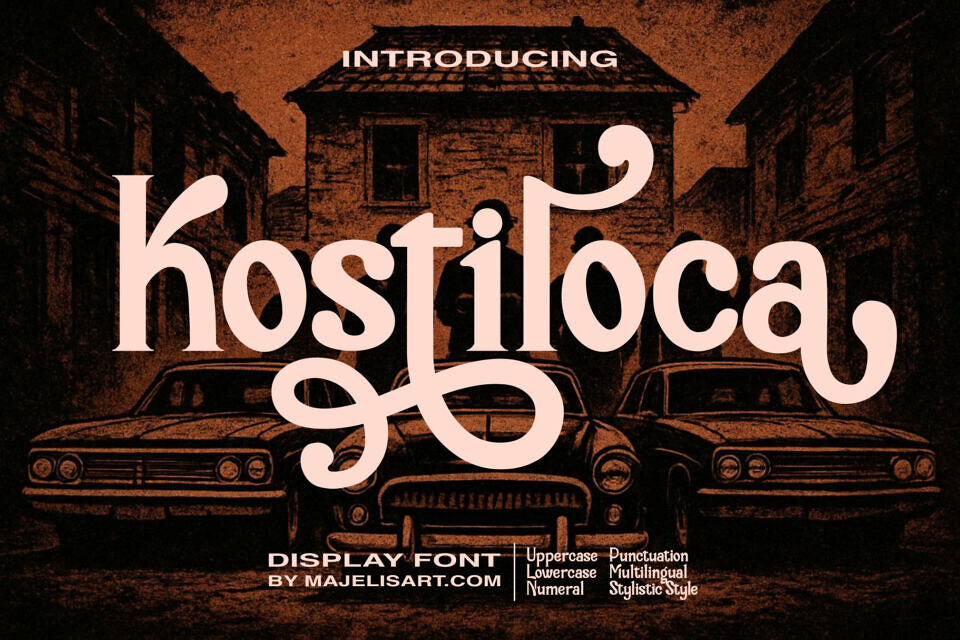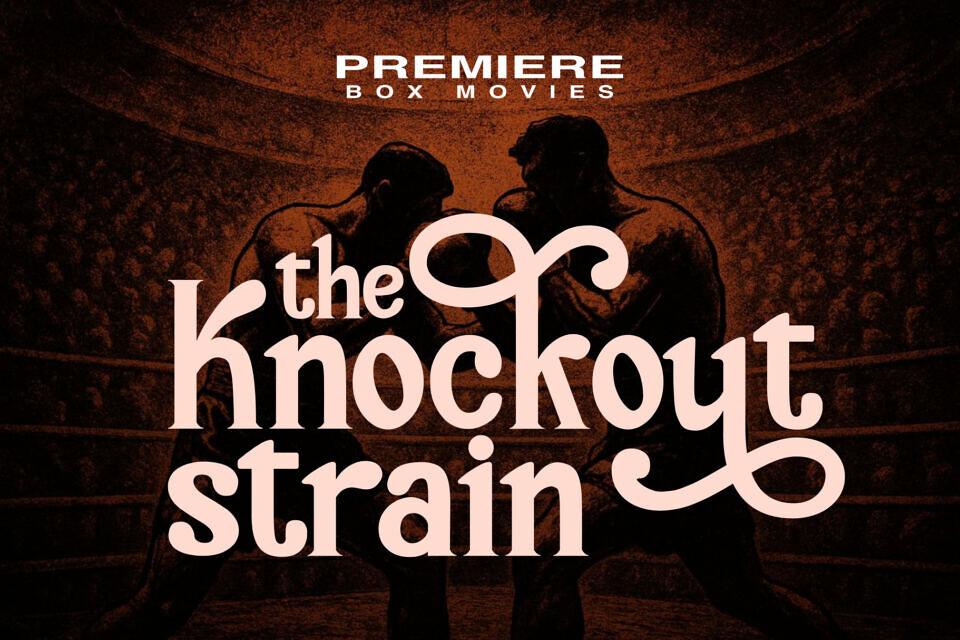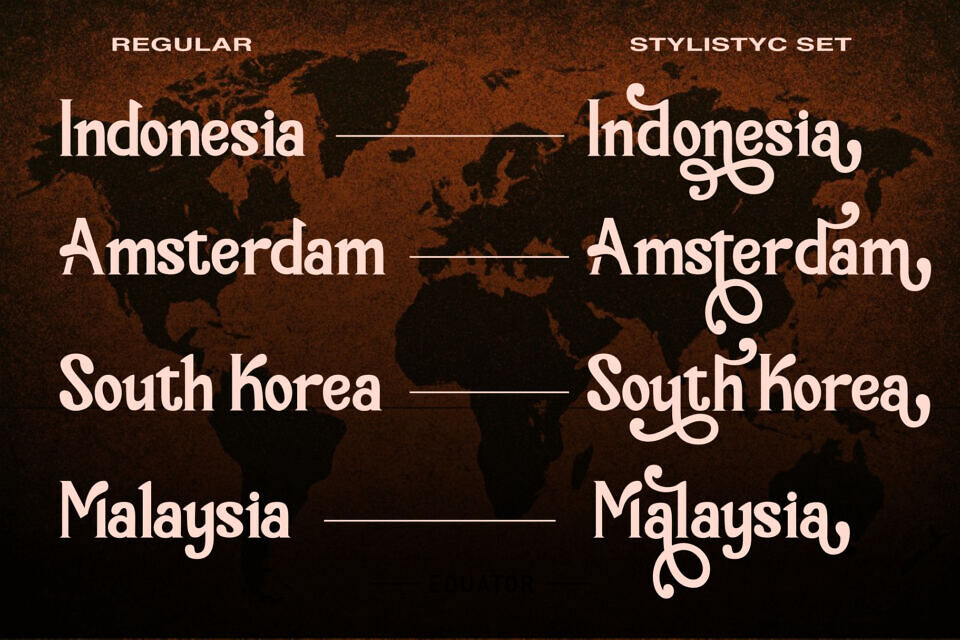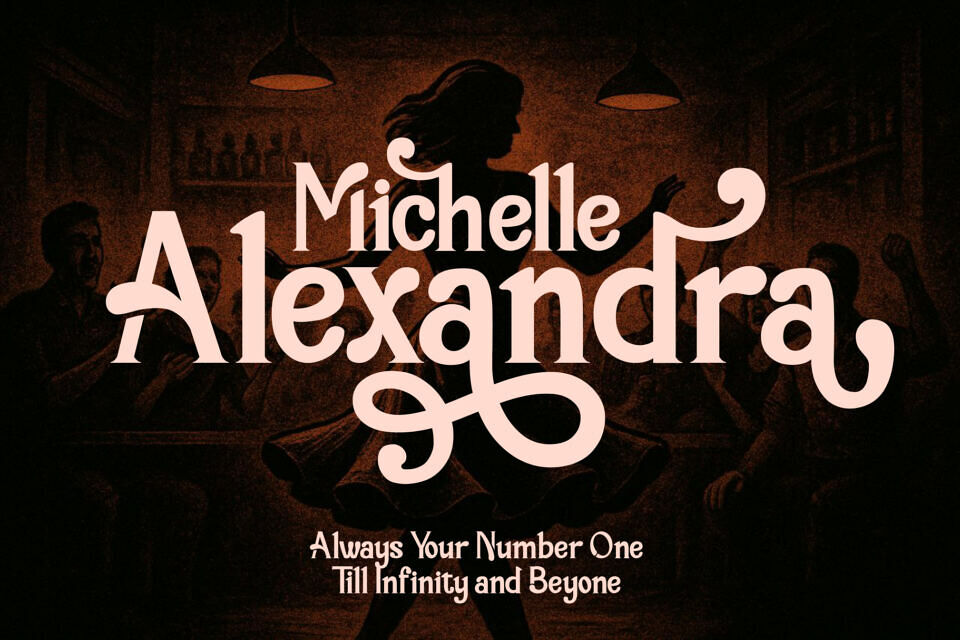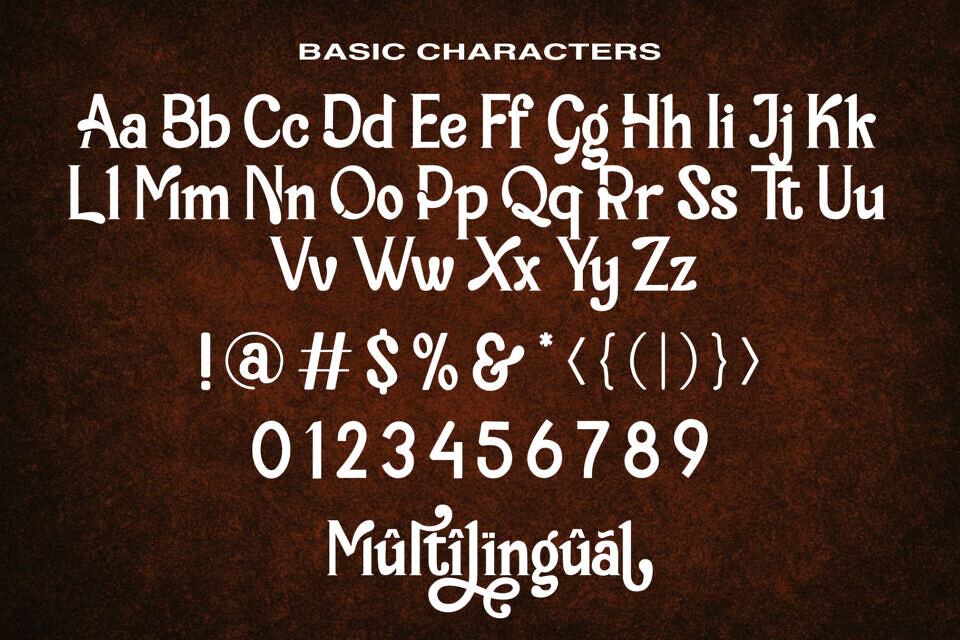
Kostiloca Font
Kostiloca is a bold display font that combines retro vibes with stylish ornamental touches. Inspired by vintage mafia aesthetics, this typeface delivers a strong, confident, and eye-catching look.
Packed with uppercase, lowercase, punctuation, multilingual support, and stylistic alternates, Kostiloca is highly versatile for both digital and print projects. This font is perfect for branding, logos, posters, packaging, music or movie titles, book covers, apparel, and any design that needs a bold and expressive identity.